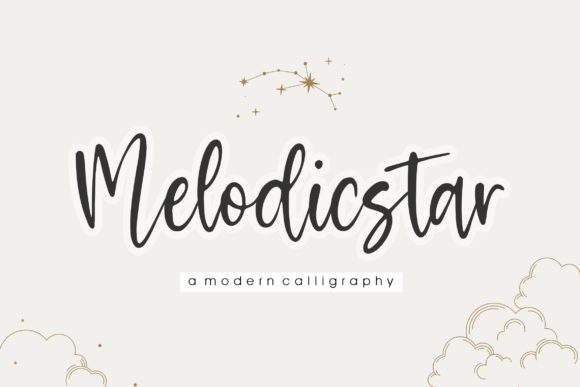
Journey into the realm of Melodicstar, a font of unrivaled elegance and grace. Each character dances and twirls across the page like a delicate melody, captivating the eyes and stirring the soul. Crafted with the utmost care by the renowned Balpirick, Melodicstar is more than just a font; it's an experience. Discover the enchanting world of tattoos, where Melodicstar's flowing lines and sweeping curves bring your artistic visions to life.
Embrace the magic of calligraphy and let Melodicstar's graceful strokes elevate your designs to new heights. Its enchanting aura will captivate your audience, leaving them spellbound by your creativity. Transform your digital creations into masterpieces, effortlessly evoking emotions and telling stories through the art of typography.
Melodicstar is not merely a font; it's a canvas for your imagination, an instrument to express your individuality. Dive into the depths of your creativity and let Melodicstar guide you as you craft enchanting designs that resonate with your soul. Experience the pure joy of self-expression as you watch your ideas take shape, imbued with the effortless elegance of Melodicstar.
Unleash the beauty of Melodicstar in your designs and watch as they blossom into works of art. Its enchanting aura will captivate your audience, leaving them spellbound by your artistic prowess. Ascend to new heights of creativity and let Melodicstar be your guiding light. Embrace the magic of typography and let your designs sing with the enchanting melody of Melodicstar.